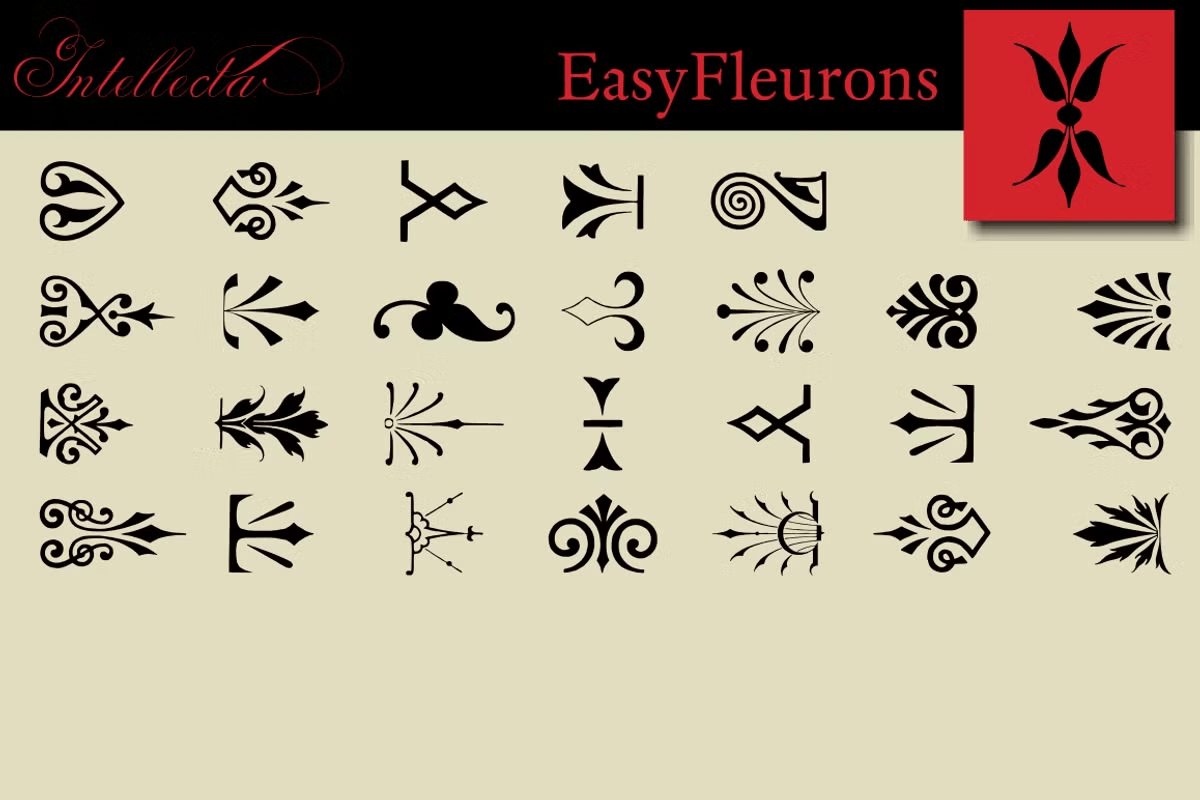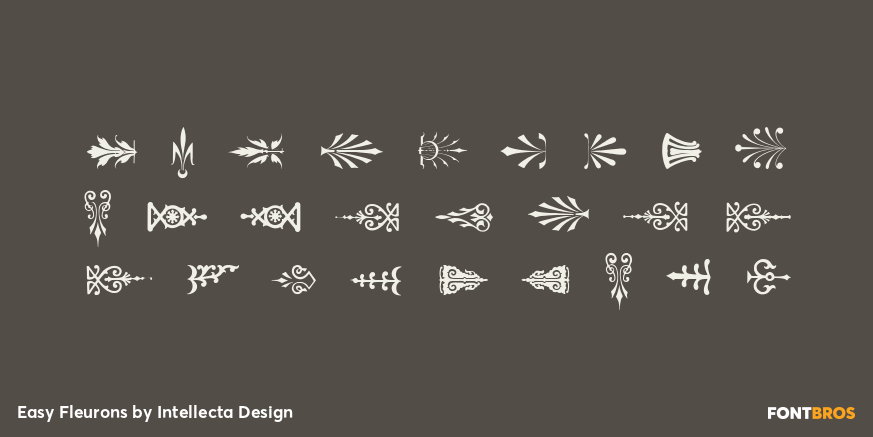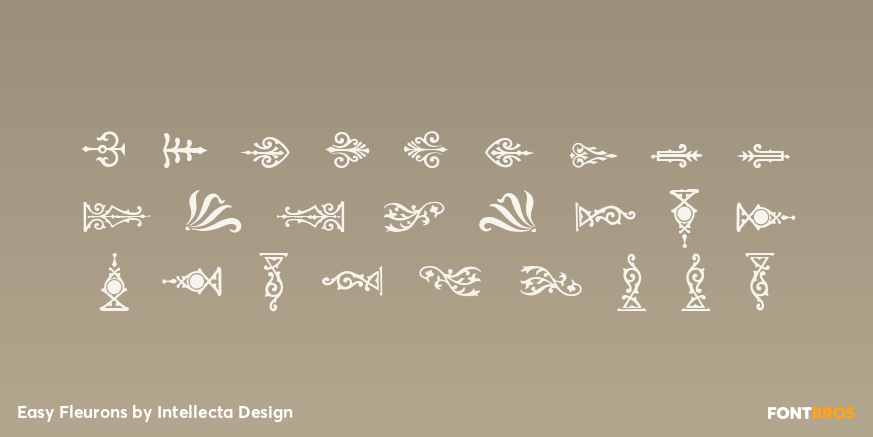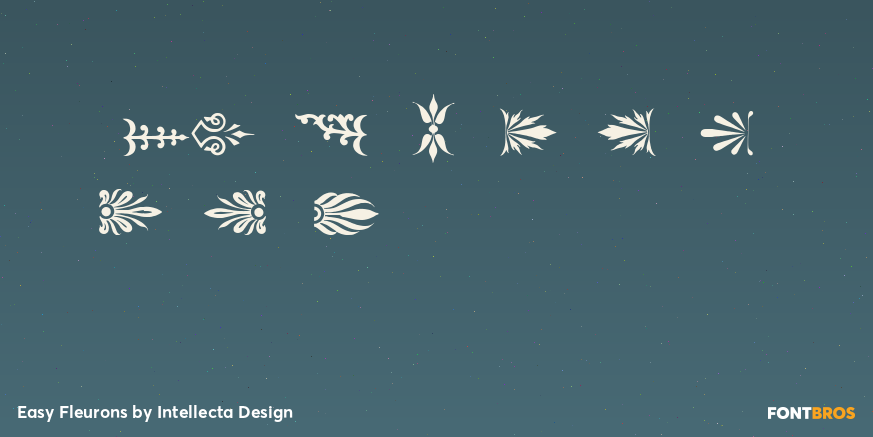
Easy Fleurons
Font Family by Intellecta Design
Easy Fleurons Pack are highly decorative yet generic enough to add very interesting detail to just about any design. From invitations and greeting cards to book jackets, labels or fabric.